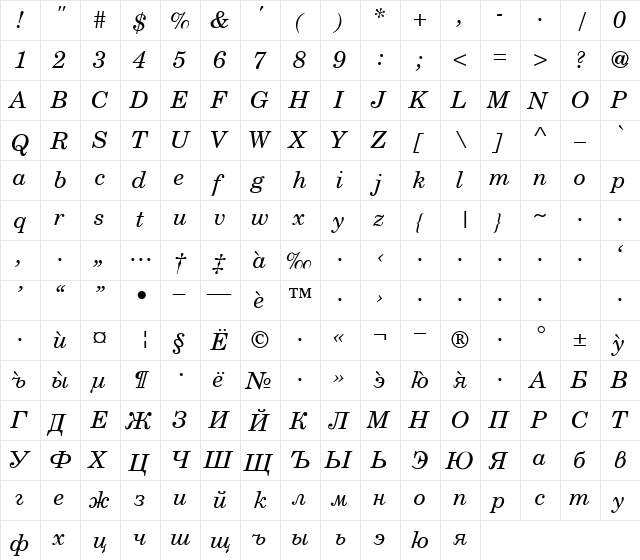
NewSaturionModernCyr Italic
Design Context for NewSaturionModernCyr Typeface
NewSaturionModernCyr is a composed and adaptable typeface that performs quietly and consistently across a wide range of design contexts. The slanted form adds forward momentum and visual energy.
Pro Tip: Try NewSaturionModernCyr for annotation and caption copy alongside an upright companion — the contrast in angle creates a dynamic but ordered typographic system.